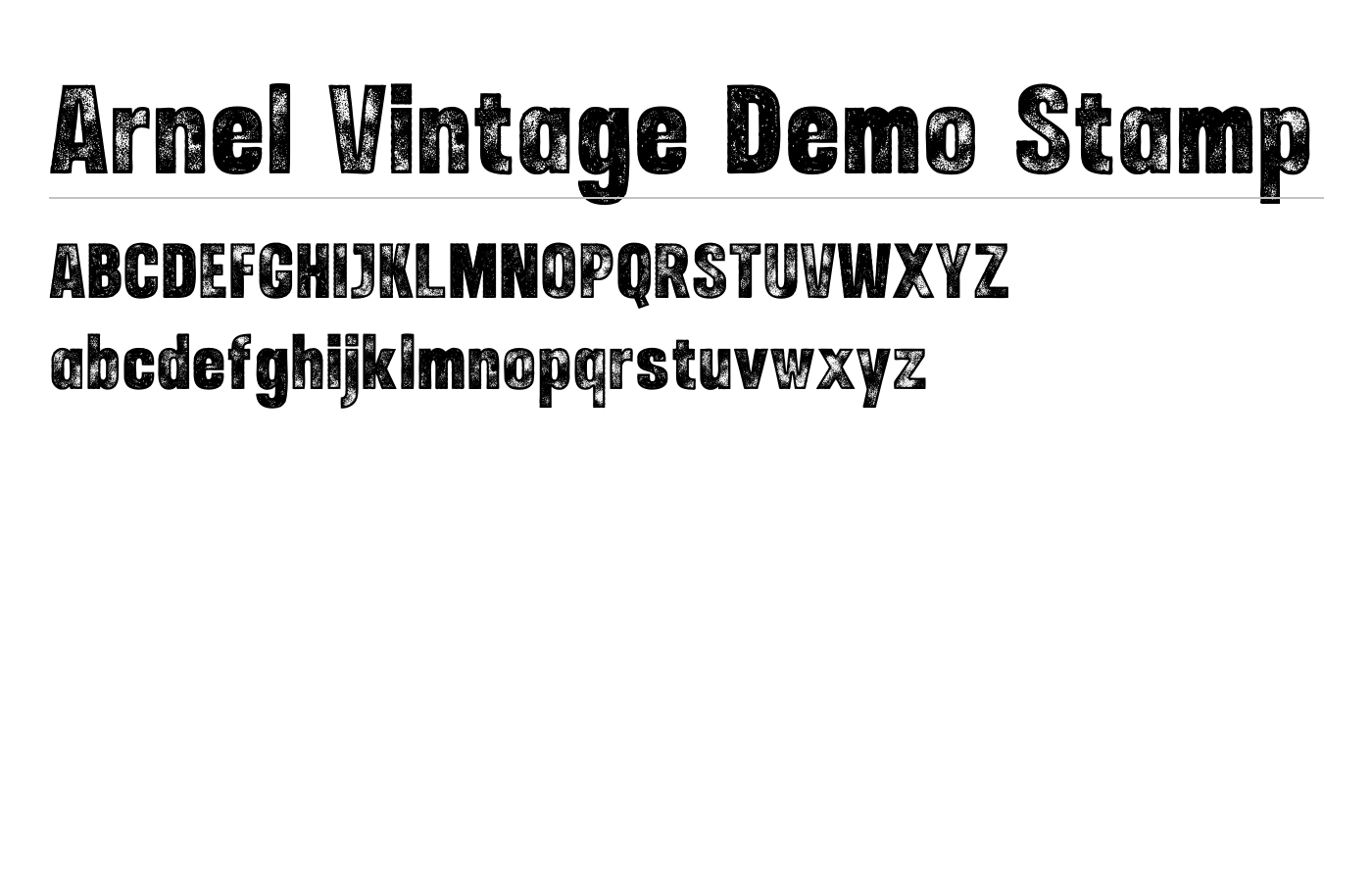
Arnel Vintage Demo is a bold, condensed sans serif font with a distressed, textured style that evokes a nostalgic, vintage feel. Its strong, blocky letterforms and rough, stamped effect make it perfect for designs seeking an authentic retro or industrial look, suitable for logos, posters, and packaging that want to stand out with character and a handcrafted touch.
Arnel Vintage Demo Font
About Arnel Vintage Demo Font